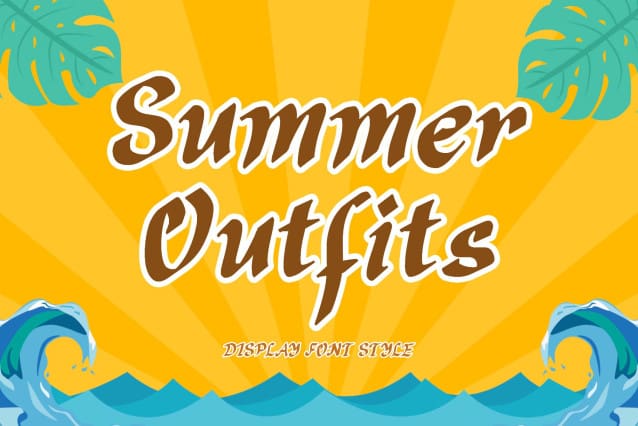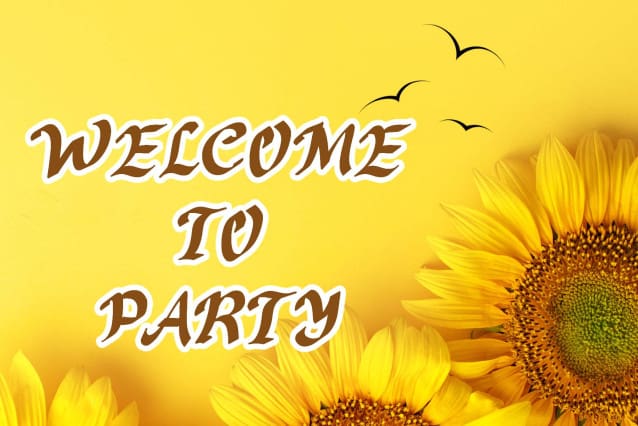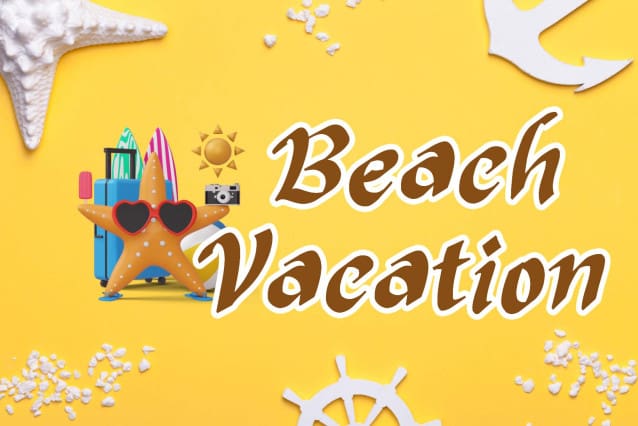
Summer Outfits Font
Summer Outfits Font is a summer-themed display font that is very suitable for your summer vacation moments. This font is equipped with uppercase, lowercase, numerals, punctuations and multilingual support. very suitable for vacation, summer, parties, camping, holidays and others.